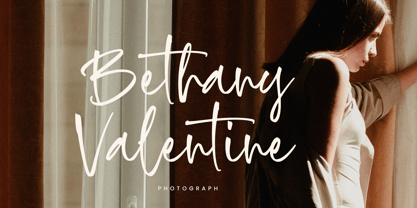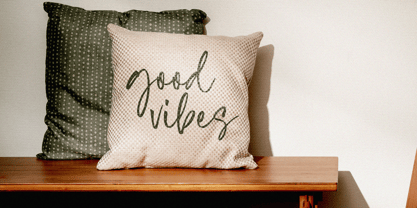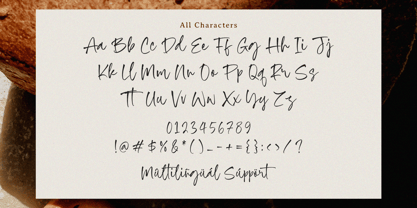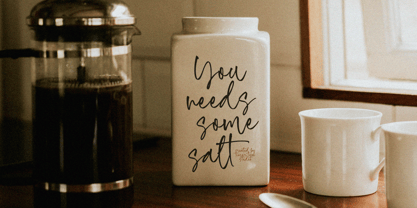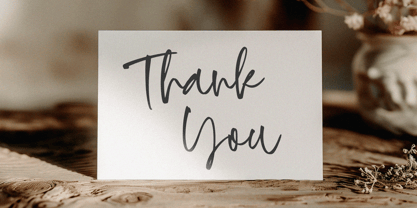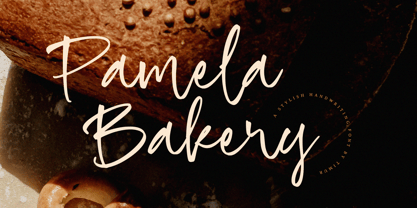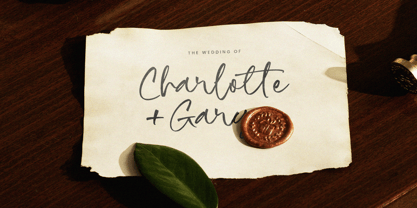
Pamela Bakery
by Timurtype
The Pamela Bakery Font Family was designed by Wara Sigit Tri Pamungkas and published by Timurtype. Pamela Bakery contains 1 styles.
Pamela Bakery is a Stylish Handwriting Script Font
This font is a charming and stylish handwriting script font with a natural flow, perfect for adding a personal and elegant touch to designs. Its smooth curves and playful character make it ideal for bakery branding, wedding invitations, logos, and social media graphics, exuding warmth and creativity.
Pamela Bakery Font also supports multilingualism